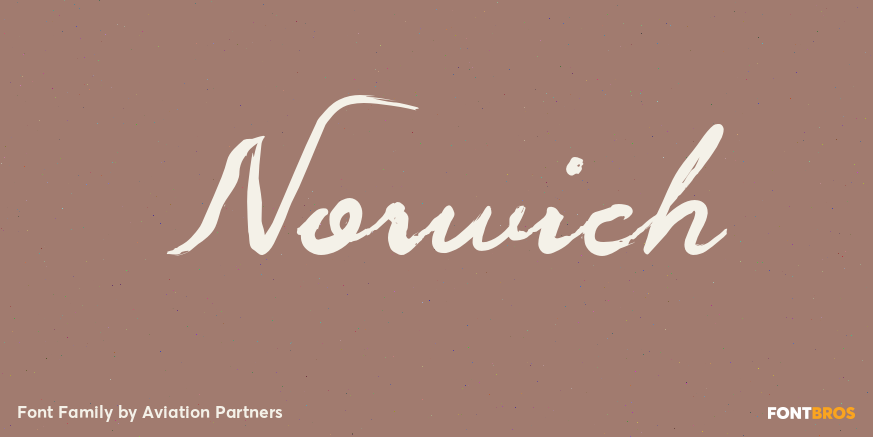
HomeFont BrosHandwrittenNorwich HandwrittenScripts: Casual Norwich FacebookXPinterestWhatsApp 1 of 1 About Norwich is a grungy version of the font Tenison and provides real blobby pen handwriting.  DOWNLOAD ON FONT BROSThis font is sold and delivered by Font Bros. Font Canyon may earn a commission if you buy through this link. People also explored Play Lamp Font Fluffy Slacks BTN Always Chubby Font Grilesthy Semi-Bold Font Sparkle Font Bally Girl Sailmaker Script A Modern Minimalistic Hand Lettered Font Fonts for Cricut,... Mistake Font Rainbow Calligraphy Font 337 0 TagsNorwichNorwich Font Previous articleMarkerManNext articleBreak Beach LEAVE A REPLY Cancel reply Comment: Please enter your comment! Name:* Please enter your name here Email:* You have entered an incorrect email address! Please enter your email address here Website: Save my name, email, and website in this browser for the next time I comment. Personal Use Free Quick Count Personal Use Free Read more about this font Knox Personal Use Free Read more about this font The Relapse Personal Use Free Read more about this font Straighler Personal Use Free Read more about this font BLOG 5 Fonts That Will Dominate Design Trends in 2026 5 Fonts for 2026 That Will Dominate Design Trends Typography plays a critical role in visual communication, and as we look ahead to 2026, it’s... Modern Sans-Serif Fonts That Brands Love in 2025 How to Install and Use Fonts on Windows, macOS, and Web Projects Best Fonts for YouTube Videos: Make Your Thumbnails Stand Out